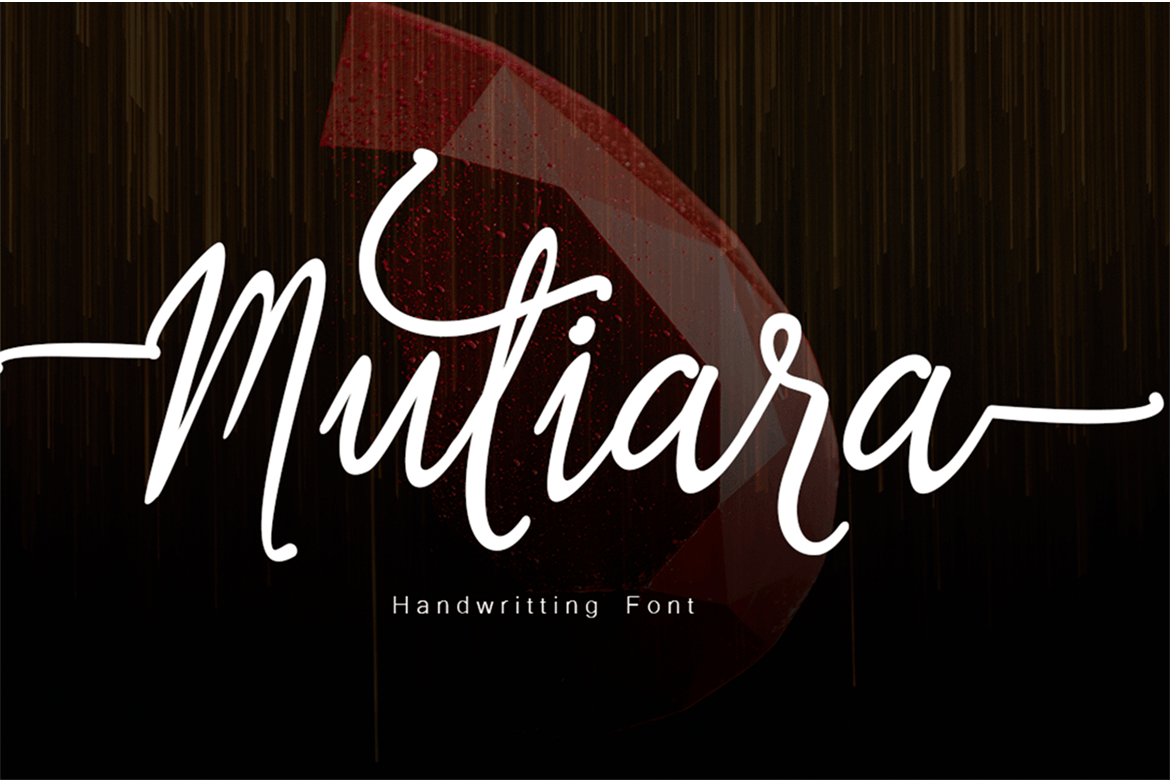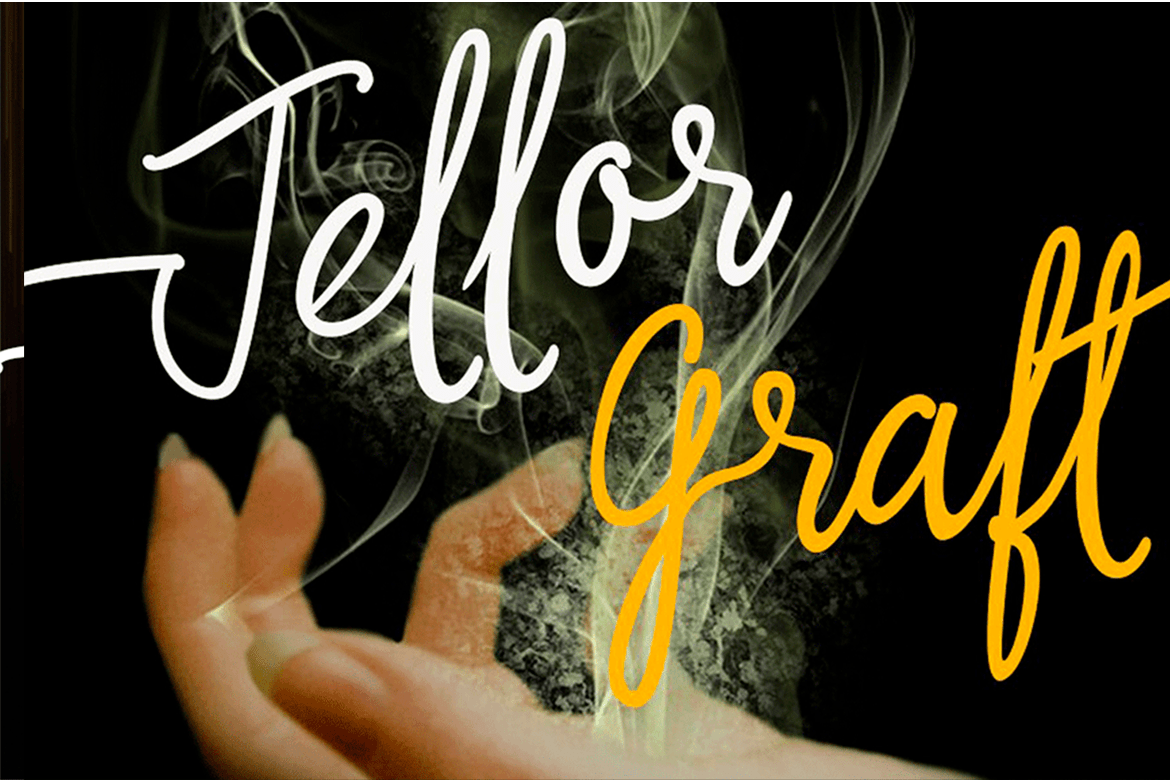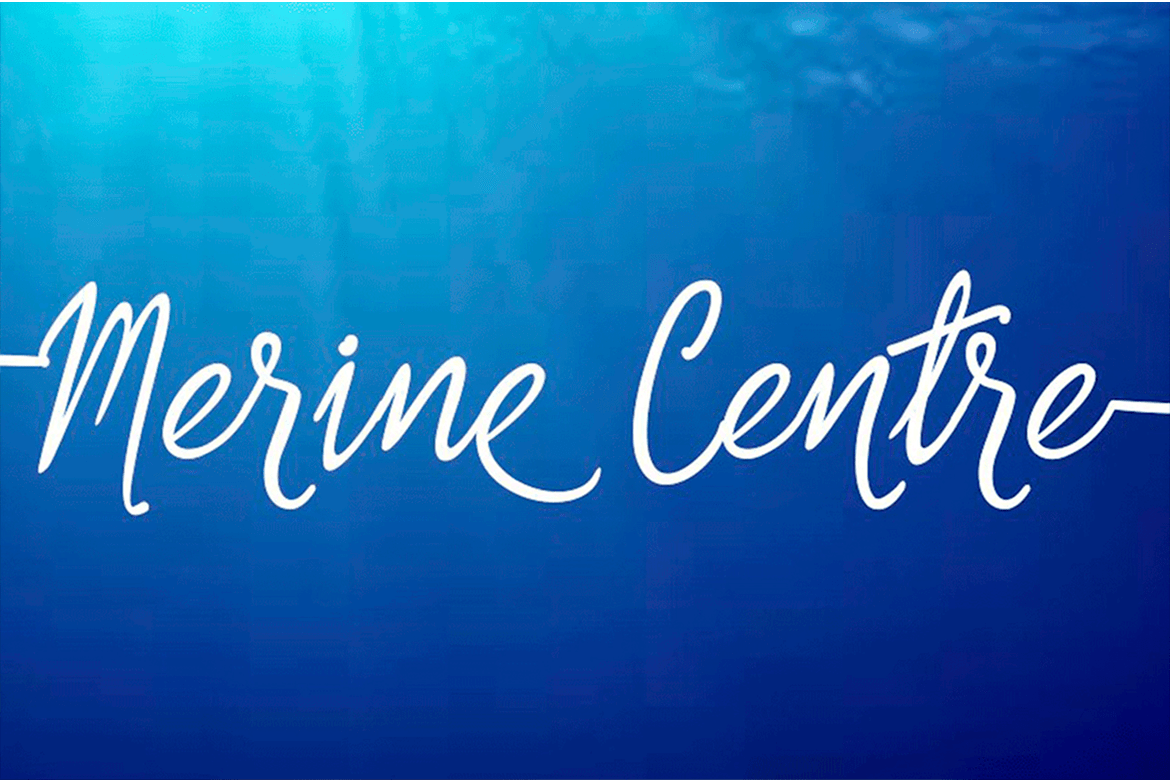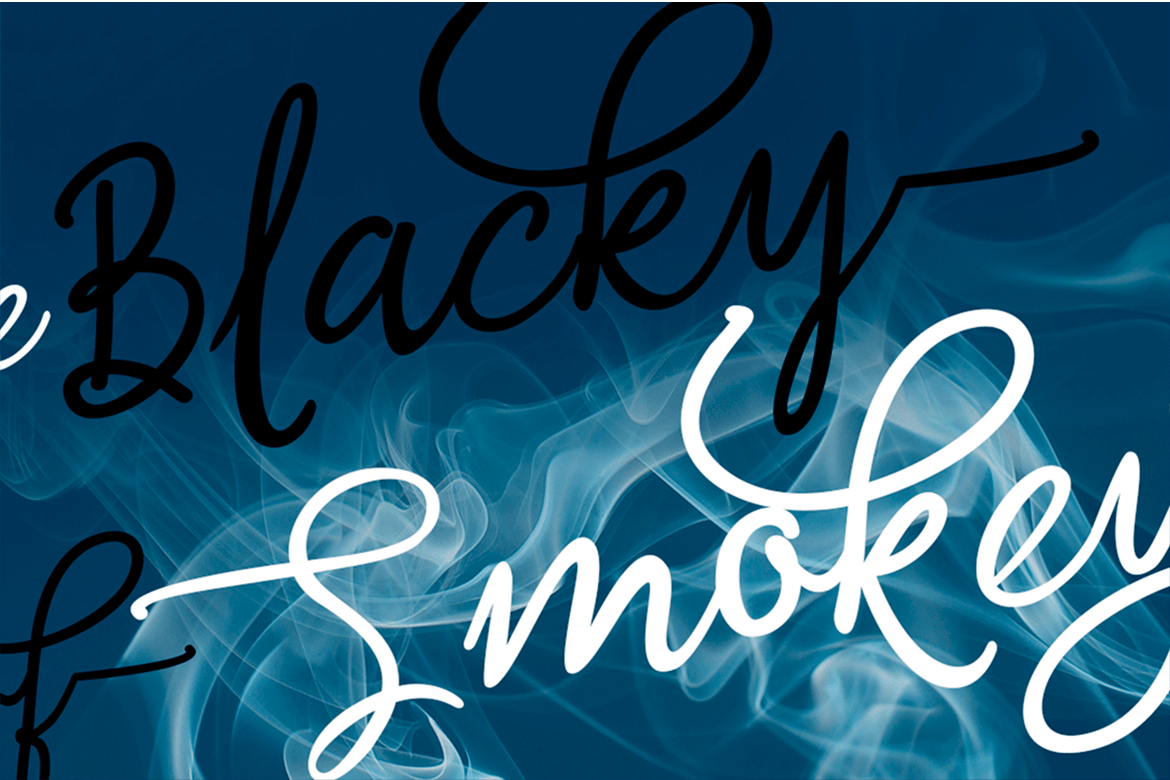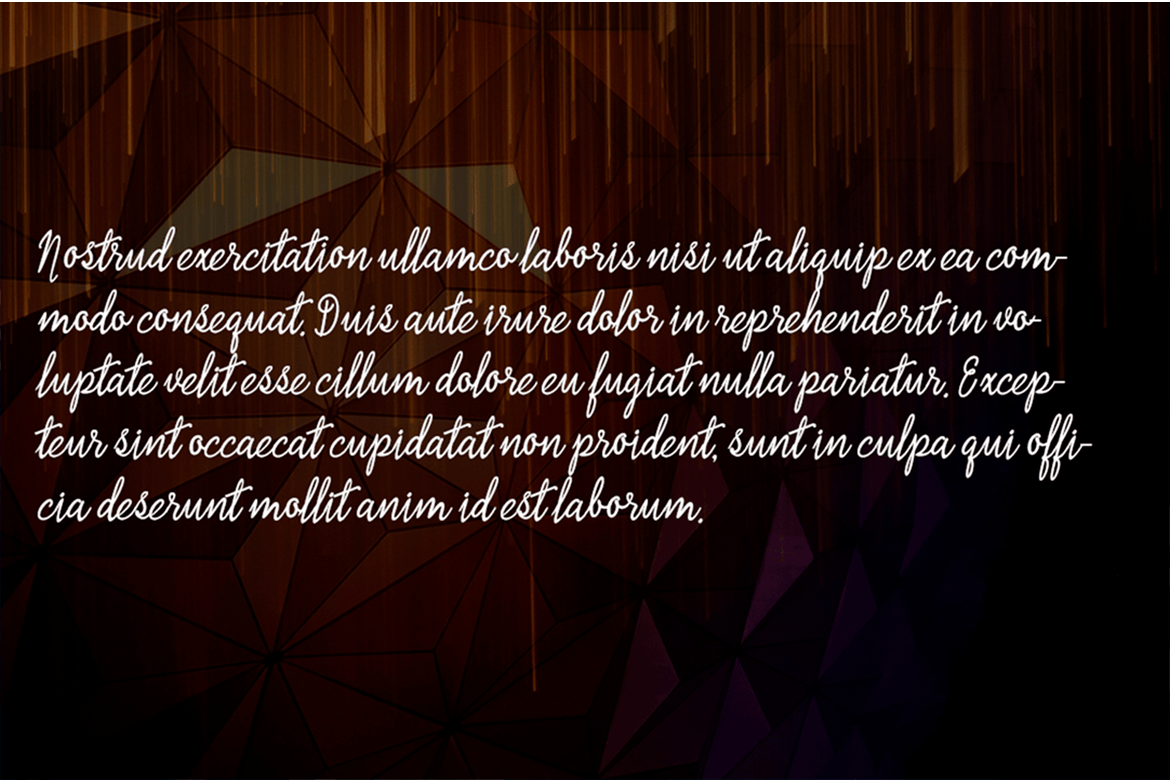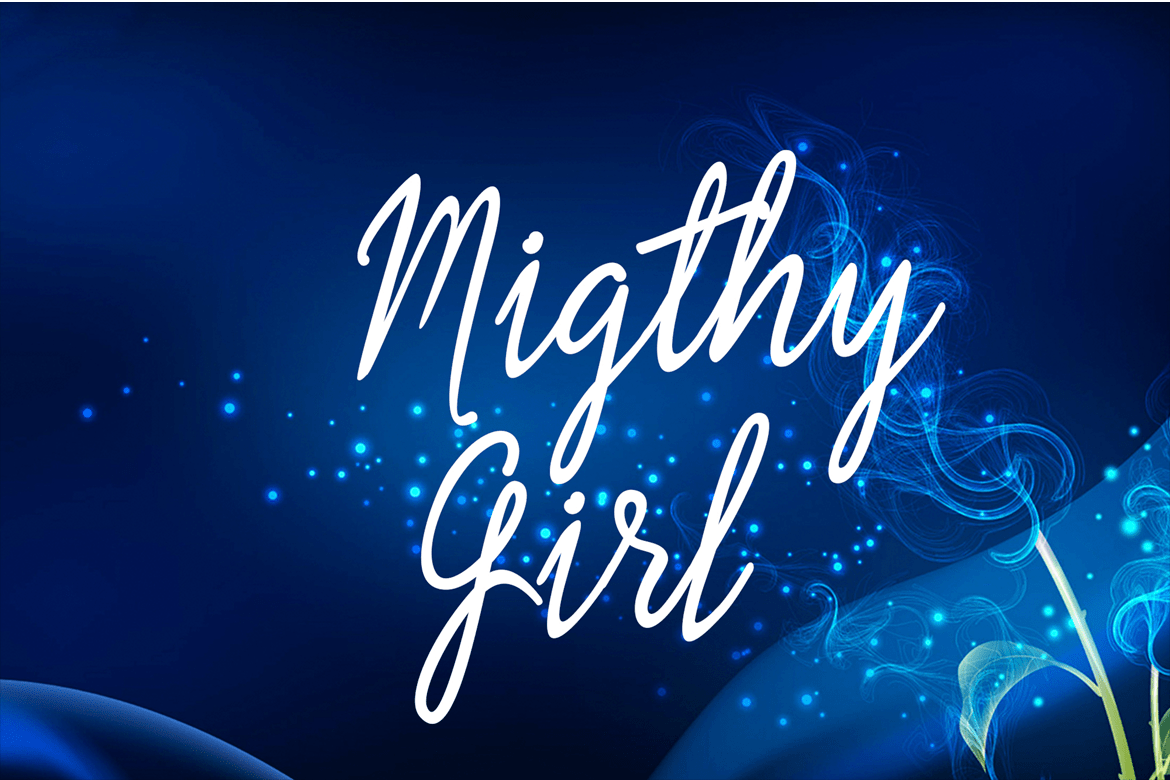
Mutiara
Mutiara is a script font that has the characteristic nature, it is very suitable to make certain label and event business and you could be using for a unique piece.